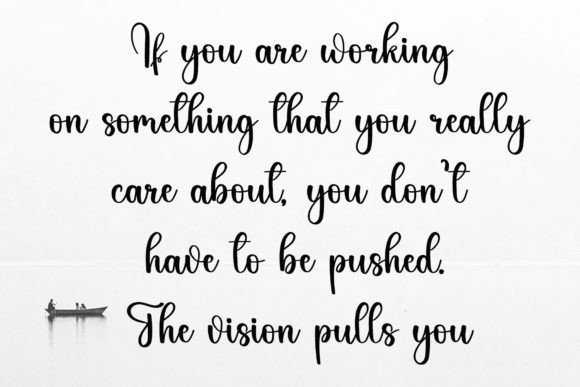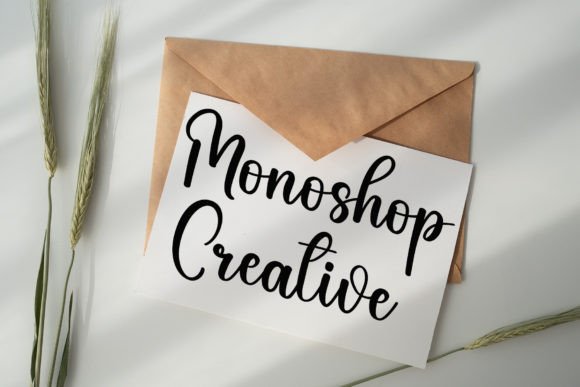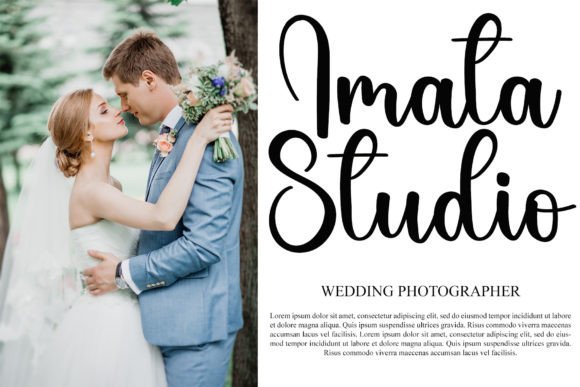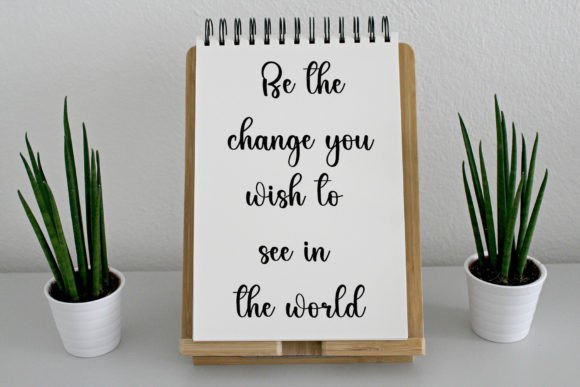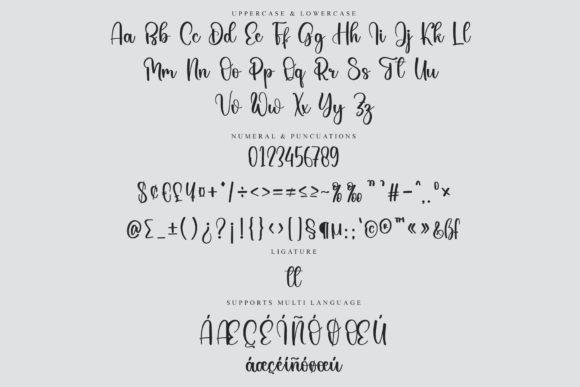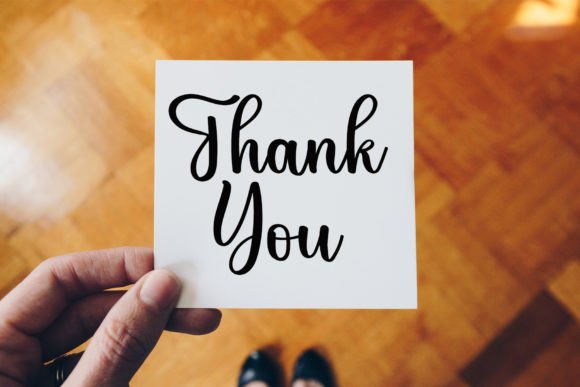
Introduction to Reflect Font
Have you ever been working on a creative project, pouring your heart and soul into it, only to feel like something’s missing? A dash of elegance, perhaps, or a sprinkle of sophistication? For designers, the perfect font can make all the difference in bringing a project to life.
That’s where the Reflect Font comes in – a stunning handwritten font that exudes a contemporary atmosphere and impeccable form. Inspired by timeless classic calligraphy, this font is designed to elevate the beauty of your projects and leave a lasting impression. Whether you’re working on a design for a brand, a wedding invitation, or a social media post, the Reflect Font is the perfect design resource to take your work to the next level.
Key Features of Reflect Font
- Unique, hand-drawn style with a transparent background, allowing for easy customization and flexibility in design applications.
- Perfect for designers looking for a distinctive and creative font to elevate their projects, with a wide range of applications in digital and print media.
Honest Review: Reflect Font
As a designer, I’m always on the lookout for high-quality design resources that can elevate my creative project to the next level. Recently, I had the chance to try out the Reflect Font, and I’m excited to share my thoughts on this fantastic font.
- High-quality glyphs that are perfect for modern design projects
- Transparent background, making it easy to use with any background image or color
- Excellent for creating a sleek and sophisticated look in your design
Any limitations ⚠️
- Not as versatile as some other fonts, may not be suitable for all design projects
- Limited language support, may not be ideal for multilingual designs
Overall, I’m really impressed with the Reflect Font. It’s a fantastic addition to any designer’s toolkit, and I highly recommend it for any modern design project. The free download option is a huge plus, and the high-quality glyphs are perfect for creating a sleek and sophisticated look. While it may have some limitations, I think it’s a great choice for designers who want a high-quality font that’s easy to use.
Reflect Font
The Reflect Font is a versatile and high-quality design resource ideal for various creative projects. Its transparent background makes it perfect for adding depth and visual interest to your designs.
Tips for Getting the Most Out of Reflect Font
To maximize the effectiveness of the Reflect Font, use it in conjunction with other design elements that complement its transparent background. Experiment with different layering and blending techniques to achieve a unique look.
Common Use Cases for Reflect Font
The Reflect Font is perfect for various creative projects, including logos, typography-based designs, graphics, and presentations. Its high-quality design and transparent background make it an ideal resource for designers and non-designers alike.
Q: Is the Reflect Font suitable for high-resolution designs?
Yes, the Reflect Font is designed to be high-resolution compatible, making it ideal for large-scale designs, such as billboards, posters, and print materials. The font’s crisp and clear typography ensures that it looks great even at high resolutions, ensuring your design stands out.